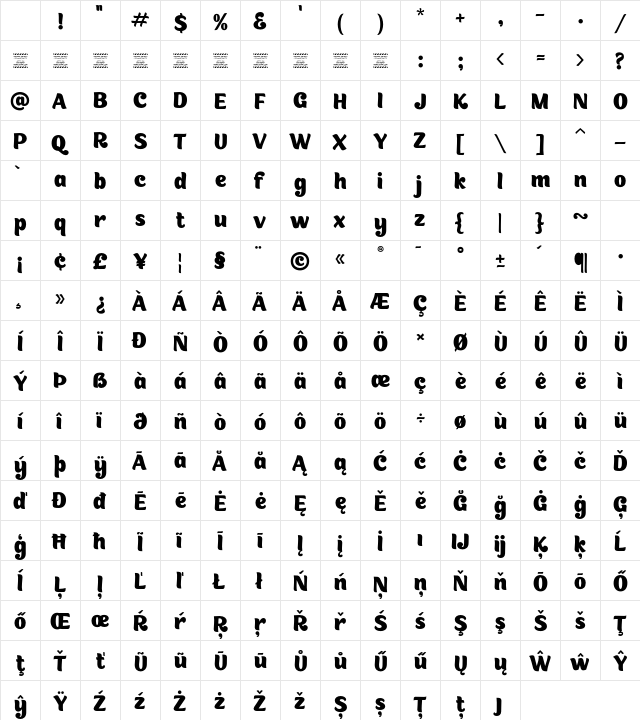
Complete Wakel DEMO Regular glyph index. Displaying only characters natively supported by Wakel DEMO Regular font.
Wakel DEMO is a composed and adaptable typeface that performs quietly and consistently across a wide range of design contexts.